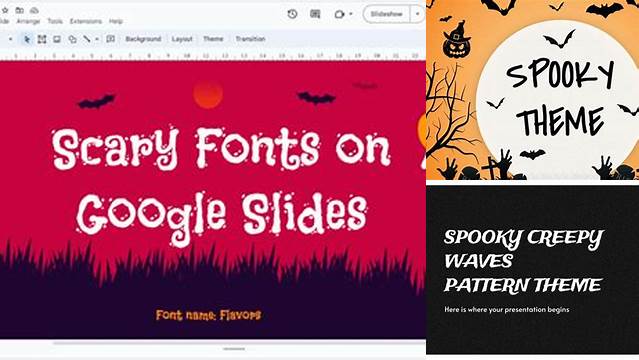
Creepy Google Slides Fonts: Make Your Presentation Spooky!
Hey guys! Want to make your Google Slides presentation seriously spooky? It all starts with choosing the right fonts. Forget about Arial and Times New Roman – we're diving into the world of creepy fonts that will send shivers down your audience's spines. Let's explore how to pick the perfect scary Google Slide fonts and really nail that eerie vibe. Trust me, the right font can make all the difference!
1. Understanding the Psychology of Scary Fonts
So, what makes a font scary anyway? It's not just about looking weird. Scary Google Slide fonts tap into our primal fears and anxieties. Think about jagged edges, uneven strokes, and fonts that mimic handwriting – especially if it looks like it was written in blood (yikes!). These visual cues trigger our brains to associate them with danger, the unknown, and all things spooky. The psychology of fonts is fascinating, guys. When selecting scary Google Slide fonts, consider fonts that are uneven or distorted, giving off a sense of unease. Also, consider fonts that are very angular and sharp; they often imply danger. Finally, test it out by using various font sizes to see which sizes emphasize the creepiness factor the most. For example, a font might look creepy at 72pt but not at 12pt. Understanding this can help you choose fonts that effectively convey the intended mood of horror or suspense. Remember that the ultimate goal is to create a visual experience that enhances the overall message and keeps your audience on the edge of their seats. It's all about finding that sweet spot between readability and sheer, unadulterated creepiness!
2. Top 5 Free Scary Fonts for Google Slides
Alright, let's get practical. What are the go-to scary Google Slide fonts that won't cost you a dime? Here are five awesome free options:
- Creepster: This font looks like it crawled straight out of a horror movie title sequence. It's bold, messy, and perfect for grabbing attention.
- Nosferatu: Inspired by the classic vampire film, this font has a gothic, old-world feel. It's elegant yet unsettling.
- Bloodlust: The name says it all! This font looks like it's dripping with, well, you know.
- Ghoulish: A playful yet spooky font that's great for a more lighthearted take on horror.
- Midnight Terror: This jagged, scratchy font is guaranteed to make your audience uneasy. When choosing scary Google Slide fonts, these five are excellent starting points because they are free, easy to incorporate, and highly effective at setting a scary mood. They're your secret weapons for creating presentations that are both informative and terrifyingly fun.
4. Combining Scary Fonts with Eerie Color Palettes
Choosing the right scary Google Slide fonts is only half the battle. You also need an eerie color palette to complete the look. Think dark and moody: blacks, deep reds, purples, and greens. Avoid bright, cheerful colors unless you're going for a deliberately jarring effect. A great trick is to use a dark background with a lighter font color to make the text really pop. Playing with contrast can make your presentation much more visually striking. Experiment with different color combinations to see what creates the most chilling effect. Don't be afraid to try unconventional pairings. Sometimes, the most unexpected color palettes can be the most effective. Remember, the goal is to create an atmosphere that enhances the message and evokes the desired emotions in your audience. Color is a powerful tool in visual communication, so use it wisely to amplify the creepiness of your presentation.
5. Using Font Size and Emphasis for Maximum Impact
Don't just slap your scary Google Slide fonts onto the slide and call it a day. Think about how you can use font size and emphasis to create maximum impact. Use larger fonts for headings and key points to grab attention. Bold and italic text can also be effective for highlighting important information. But be careful not to overdo it! Too much emphasis can be distracting. The key is to use these tools strategically to guide your audience's eye and create a sense of drama. Experiment with different font sizes and styles to see what works best for your scary Google Slide fonts. For example, a smaller, more delicate font might be perfect for body text, while a larger, bolder font is ideal for headlines. And don't forget about the power of white space! Leaving some empty space around your text can actually make it stand out even more. It's all about finding the right balance between visual interest and readability. So, take the time to play around with font size, emphasis, and spacing to create a presentation that is both visually stunning and easy to follow.
6. Incorporating Animated Fonts for Extra Creepiness
Want to take your scary Google Slide fonts to the next level? Consider using animated fonts! There are tons of websites that offer free animated fonts that you can download and use in your presentations. Imagine a font that slowly drips blood or flickers like a faulty lightbulb. Spooky, right? Animated fonts can add a whole new dimension of creepiness to your slides. However, it's important to use them sparingly. Too much animation can be overwhelming and distracting. Use animated fonts only for key headings or focal points to create a dramatic effect. And be sure to test your presentation on different devices to make sure the animations play correctly. When used effectively, animated fonts can be a game-changer. They can transform your presentation from ordinary to extraordinary and leave a lasting impression on your audience. So, if you're looking for a way to add some extra flair to your scary Google Slide fonts, give animated fonts a try. You might be surprised at how much of an impact they can make.
7. Finding Inspiration from Horror Movie Posters
Stuck for ideas? Look to horror movie posters for inspiration! Movie posters are designed to be visually striking and attention-grabbing. Pay attention to the fonts, colors, and imagery used in your favorite horror movie posters. How do they create a sense of dread and suspense? Can you replicate some of those techniques in your Google Slides presentation? For example, many horror movie posters use distressed or textured fonts to create a sense of age and decay. They also often use dark and contrasting colors to create a sense of unease. By studying these techniques, you can learn how to effectively use scary Google Slide fonts and design elements to create a truly terrifying presentation. So, next time you're watching a horror movie, pay close attention to the poster. You might just find the inspiration you need to create the perfect scary Google Slide fonts presentation.
8. The Importance of Readability with Scary Fonts
Okay, so you've found the creepiest font ever, but can anyone actually read it? That's the big question! It's super important that your scary Google Slide fonts are still readable, even if they're designed to be scary. Don't sacrifice clarity for the sake of aesthetics. Choose fonts that are legible at different sizes and distances. Use contrasting colors to make the text stand out against the background. And avoid using too much text on each slide. Remember, the goal is to communicate your message effectively, not just to scare your audience. If people can't read your slides, they're going to tune out, no matter how creepy the fonts are. So, always prioritize readability when choosing scary Google Slide fonts. It's the key to creating a presentation that is both visually stunning and informative.
9. Pairing Scary Fonts with Appropriate Images
Fonts aren't the only thing to consider. The images you use in your presentation can also contribute to the overall spooky effect. Choose images that complement your scary Google Slide fonts and reinforce the theme. Think creepy forests, abandoned buildings, and ghostly figures. Avoid using cheesy stock photos that look out of place. Instead, look for high-quality images that are genuinely unsettling. Websites like Unsplash and Pexels offer tons of free, high-resolution images that you can use in your presentations. Just be sure to choose images that are relevant to your message and that don't distract from the text. When used effectively, images can amplify the creepiness of your scary Google Slide fonts and create a truly immersive experience for your audience.
10. Creating a Consistent Theme Throughout Your Slides
Consistency is key when it comes to creating a scary Google Slide fonts presentation. Choose a consistent theme and stick to it throughout your slides. This includes your fonts, colors, images, and overall design. Avoid using too many different fonts or styles, as this can make your presentation look cluttered and unprofessional. Instead, choose a few key fonts and use them consistently throughout your slides. Similarly, choose a consistent color palette and stick to it. This will help to create a cohesive and visually appealing presentation. By maintaining a consistent theme, you can create a presentation that is both visually stunning and easy to follow. It will also help to reinforce your message and leave a lasting impression on your audience. So, take the time to plan your theme carefully and stick to it throughout your presentation.
11. The Art of Subtlety: Using Scary Fonts Sparingly
Sometimes, less is more. You don't have to plaster scary Google Slide fonts all over every slide to create a spooky effect. In fact, using them sparingly can actually be more effective. Use scary Google Slide fonts only for key headings or focal points to draw attention and create a sense of drama. Use simpler, more readable fonts for body text to ensure that your message is clear and easy to follow. The contrast between the scary Google Slide fonts and the simpler fonts will actually make the scary Google Slide fonts stand out even more. It's all about finding the right balance. So, don't be afraid to use scary Google Slide fonts sparingly. Sometimes, a little bit of creepiness goes a long way.
12. Making Your Presentation Interactive with Scary Quizzes
Want to really engage your audience? Throw in a scary quiz! Use your scary Google Slide fonts to create a quiz with questions related to your presentation's theme. This is a great way to test your audience's knowledge and keep them entertained. You can use Google Forms to create an interactive quiz and embed it into your presentation. Or, you can simply create a series of slides with multiple-choice questions. Be sure to provide clear and concise instructions and make the quiz challenging but not too difficult. And, of course, use scary Google Slide fonts and images to create a spooky atmosphere. An interactive quiz is a great way to add some fun and excitement to your presentation and keep your audience engaged from start to finish.
13. The Power of Sound Effects to Enhance Scary Fonts
Don't forget about sound! Sound effects can be a powerful tool for enhancing the creepiness of your scary Google Slide fonts presentation. Imagine the sound of thunder crashing as you reveal a title in a scary Google Slide fonts, or the sound of a creaking door as you transition to the next slide. Sound effects can add a whole new dimension of immersion to your presentation and make it even more terrifying. Just be sure to use sound effects appropriately and avoid using anything that is too loud or jarring. The goal is to enhance the presentation, not to scare people out of their seats. Websites like FreeSound offer tons of free sound effects that you can use in your presentations. So, don't be afraid to experiment with sound and see how it can enhance your scary Google Slide fonts presentation.
14. Utilizing Video Clips for Maximum Spookiness
If a picture is worth a thousand words, then a video clip is worth a million screams! Incorporating video clips into your scary Google Slide fonts presentation is a great way to add some extra spookiness and create a truly immersive experience for your audience. Use video clips sparingly and choose clips that are relevant to your message and that complement your scary Google Slide fonts. For example, you could use a clip from a classic horror movie or a short animation with a creepy theme. Be sure to keep your video clips short and sweet, as long clips can be distracting. And, of course, use scary Google Slide fonts and images to create a cohesive and visually appealing presentation. When used effectively, video clips can be a game-changer and take your scary Google Slide fonts presentation to the next level.
15. Creating Suspense with Gradual Font Reveals
Want to build suspense? Try gradually revealing your scary Google Slide fonts! Instead of simply displaying the text all at once, use animations to reveal it piece by piece. For example, you could have the letters fade in one at a time, or you could have the text slide in from the side. This can create a sense of anticipation and make the reveal of the text even more dramatic. Just be sure to use animations that are subtle and not too distracting. The goal is to build suspense, not to annoy your audience. And, of course, use scary Google Slide fonts that are appropriate for the theme of your presentation. A gradual font reveal is a great way to add some extra flair to your presentation and keep your audience on the edge of their seats.
16. Avoiding Clichés: Fresh Ideas for Scary Fonts
Let's be real, some scary Google Slide fonts are just plain cliché. Think dripping blood and jagged edges. While those can be effective, let's aim for something a little more unique, shall we? Instead of going for the obvious, try to find scary Google Slide fonts that are more subtle and nuanced. Look for fonts that evoke a sense of unease or discomfort, rather than outright horror. Or, try pairing a seemingly innocent font with a dark and unsettling color palette. The key is to think outside the box and come up with fresh ideas that will surprise and delight (or terrify) your audience. So, ditch the clichés and embrace your creativity! The world of scary Google Slide fonts is vast and full of possibilities. Go out there and explore!
17. The Ethical Considerations of Using Scary Fonts
Okay, before we get too carried away with all the spookiness, let's talk about ethics. Is it ever inappropriate to use scary Google Slide fonts? Absolutely! Consider your audience and the context of your presentation. If you're presenting to a group of young children or addressing a sensitive topic, scary Google Slide fonts might not be the best choice. Always err on the side of caution and choose fonts that are appropriate for the situation. Remember, the goal is to communicate your message effectively, not to scare or offend your audience. So, use your best judgment and think carefully before incorporating scary Google Slide fonts into your presentations. A little bit of sensitivity can go a long way.
18. Adapting Scary Fonts for Different Presentation Styles
Not all presentations are created equal. A scary Google Slide fonts that works for a Halloween party might not be appropriate for a business meeting. The key is to adapt your font choices to the specific style and tone of your presentation. If you're giving a more formal presentation, you might want to tone down the creepiness and choose fonts that are more subtle and sophisticated. On the other hand, if you're giving a presentation at a horror convention, you can go wild and embrace the full-on spookiness. Just remember to always consider your audience and the context of your presentation when choosing scary Google Slide fonts. A little bit of adaptation can make all the difference.
19. Troubleshooting Common Font Display Issues in Google Slides
Ever had a scary Google Slide fonts look great on your computer, but then turn into a garbled mess when you open the presentation on another device? It's a common problem! Here are a few tips for troubleshooting font display issues in Google Slides: First, make sure that the font is actually installed on the device you're using to view the presentation. If it's not, Google Slides will substitute a different font, which can mess up the formatting. Second, try embedding the font in your presentation. This will ensure that the font is always displayed correctly, even if it's not installed on the device. Finally, if all else fails, try converting your text to images. This will prevent any font display issues, but it will also make your text less editable. By following these tips, you can avoid common font display issues and ensure that your scary Google Slide fonts always look their best.
20. The Future of Scary Fonts in Presentation Design
What does the future hold for scary Google Slide fonts in presentation design? As technology continues to evolve, we can expect to see even more creative and innovative fonts emerge. Imagine fonts that respond to the viewer's emotions or fonts that change their appearance based on the content of the presentation. The possibilities are endless! We can also expect to see more sophisticated tools for creating and customizing fonts, making it easier than ever to create unique and impactful presentations. So, keep an eye on the horizon and be prepared to embrace the future of scary Google Slide fonts in presentation design. It's going to be a wild ride!
21. Mastering Kerning and Tracking for Spooky Typography
Alright, typography nerds, let's dive into the details! Kerning and tracking are two crucial aspects of typography that can significantly impact the effectiveness of your scary Google Slide fonts. Kerning refers to the spacing between individual letters, while tracking refers to the overall spacing between all the letters in a word or phrase. By carefully adjusting the kerning and tracking, you can create a more balanced and visually appealing text. For scary Google Slide fonts, you might want to experiment with tighter kerning to create a sense of claustrophobia or wider tracking to create a sense of isolation. The key is to play around with these settings until you achieve the desired effect. So, don't be afraid to get your hands dirty and experiment with kerning and tracking. It's a small detail that can make a big difference.
22. Using Gradients and Textures to Enhance Font Appearance
Want to add some extra depth and dimension to your scary Google Slide fonts? Try using gradients and textures! A gradient is a gradual transition between two or more colors, while a texture is a visual pattern that adds surface detail. By applying gradients and textures to your scary Google Slide fonts, you can create a more visually interesting and impactful text. For example, you could use a dark gradient to create a sense of depth or a rough texture to create a sense of age and decay. Just be sure to use gradients and textures sparingly and avoid anything that is too distracting. The goal is to enhance the font, not to overwhelm it. So, experiment with different gradients and textures and see what works best for your scary Google Slide fonts.
23. Exploring Font Foundries Specializing in Horror Themes
Looking for some truly unique and terrifying fonts? Check out font foundries that specialize in horror themes! These foundries often offer a wide selection of scary Google Slide fonts that you won't find anywhere else. They also tend to be more knowledgeable about the nuances of horror typography and can provide valuable advice and inspiration. Some popular font foundries that specialize in horror themes include Fenotype, House of Lime, and Fontfabric. By exploring these foundries, you can discover a treasure trove of scary Google Slide fonts and take your presentation to the next level. So, don't be afraid to venture off the beaten path and explore the world of specialized font foundries. You might just find the perfect font to scare your audience silly!
24. Optimizing Fonts for Projector and Screen Displays
What looks great on your computer screen might not look so great on a projector or large display. That's why it's important to optimize your scary Google Slide fonts for different display types. When presenting on a projector, use larger fonts and avoid thin or delicate fonts that might be difficult to read. Also, be sure to use high-contrast colors to ensure that the text stands out against the background. When presenting on a large display, you can use smaller fonts and more intricate designs, but still pay attention to contrast and readability. By optimizing your fonts for different display types, you can ensure that your scary Google Slide fonts always look their best, no matter where you're presenting.
25. The Use of Font Licensing and Copyright Considerations
Before you go crazy downloading and using every scary Google Slide fonts you find online, it's important to understand font licensing and copyright considerations. Most fonts are protected by copyright, which means that you need a license to use them legally. Some fonts are free for personal use but require a commercial license for business purposes. Other fonts are completely free for any use. Be sure to read the license agreement carefully before using any font to ensure that you're complying with the terms and conditions. Using a font without the proper license can result in legal trouble, so it's always best to err on the side of caution. When searching for scary Google Slide fonts, look for fonts with clear and easy-to-understand licenses. This will save you a lot of headaches down the road.
26. Creating Custom Scary Fonts Using Font Design Software
Feeling ambitious? Why not create your own scary Google Slide fonts? With font design software, you can unleash your creativity and design fonts that are completely unique and tailored to your specific needs. Font design software allows you to create and edit every aspect of a font, from the shape of the letters to the spacing between them. This gives you complete control over the look and feel of your fonts. While creating your own fonts can be time-consuming, it's also incredibly rewarding. You'll have the satisfaction of knowing that you created something truly original. Plus, you'll have a font that no one else has! So, if you're feeling adventurous, give font design a try. You might just discover your inner font designer. Scary Google Slide fonts and font design software are a great way to express your creative side.
27. Exploring the History and Evolution of Horror Typography
To truly understand scary Google Slide fonts, it's helpful to explore the history and evolution of horror typography. Horror typography has its roots in gothic and blackletter fonts, which were popular in the Middle Ages. These fonts were often used in religious texts and were associated with darkness and mystery. As horror movies and literature emerged, designers began to experiment with new and innovative fonts that evoked feelings of fear, suspense, and dread. Today, horror typography is a diverse and ever-evolving field, with designers constantly pushing the boundaries of what's possible. By understanding the history and evolution of horror typography, you can gain a deeper appreciation for the art and craft of scary Google Slide fonts.
28. Advanced Text Effects for Enhancing Spooky Font Designs
Ready to take your scary Google Slide fonts to the next level? Let's explore some advanced text effects that can enhance your spooky font designs and really make them pop. Effects like shadows, glows, and distortions can add depth, dimension, and a touch of the macabre to your text. Imagine a font with a subtle drop shadow that makes it appear to float off the screen, or a font with a glowing outline that creates an eerie halo effect. Distortions like skewing, warping, and twisting can also be used to create a sense of unease and disorientation. Just be sure to use these effects sparingly and avoid anything that is too distracting. The goal is to enhance the font, not to overwhelm it. With the right text effects, you can transform your scary Google Slide fonts into truly terrifying works of art.
29. Showcasing Examples of Effective Scary Font Usage
Let's get inspired! Take a look at some examples of effective scary Google Slide fonts usage in real-world presentations. Analyze the font choices, color palettes, and overall design to see what makes them work. Pay attention to how the fonts are used to create a specific mood or atmosphere. Do they evoke feelings of fear, suspense, or dread? Do they complement the content of the presentation? By studying these examples, you can gain valuable insights and inspiration for your own scary Google Slide fonts designs. So, spend some time browsing online and collecting examples of scary Google Slide fonts that you admire. You'll be surprised at how much you can learn from observing the work of others.
30. Staying Updated on the Latest Trends in Scary Typography
The world of typography is constantly evolving, with new fonts and design trends emerging all the time. To stay ahead of the curve, it's important to stay updated on the latest trends in scary Google Slide fonts. Follow typography blogs, attend design conferences, and network with other designers to learn about new fonts, techniques, and styles. Be open to experimentation and don't be afraid to try new things. The more you learn, the better equipped you'll be to create effective and innovative scary Google Slide fonts designs. So, make a commitment to lifelong learning and stay curious about the ever-changing world of typography.